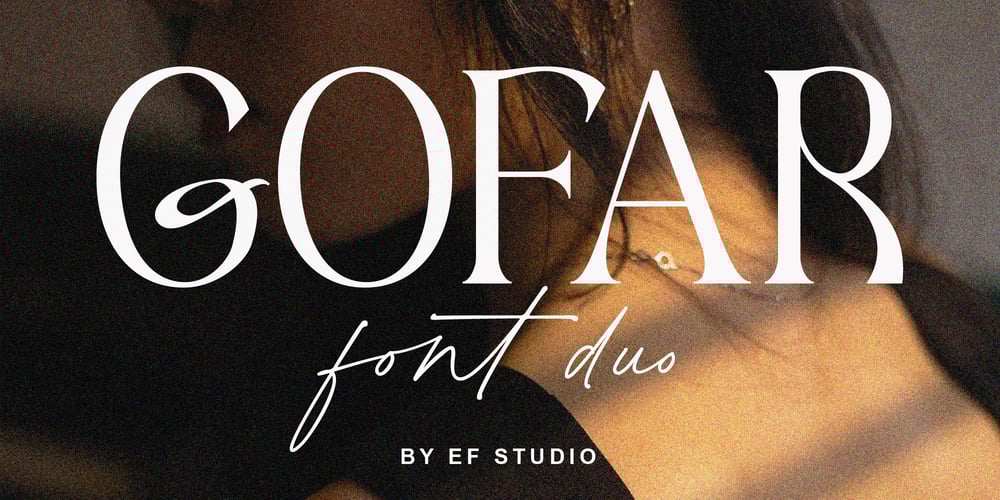
Gofar
Gofar font
Gofar Font Family was designed by Luthfi Fauzi and published by Ef Studio. Gofar contains 2 styles and family package options. Gofar is a font duo that combine Serif and Script font. The Gofar Serif font looks contemporary and modern, some letters has unique form. You will also find Gofar Script with ligatures that beautiful to pair with. This font perfect for every project like branding, editorial design, book, logo, website, social media, and any project you like.